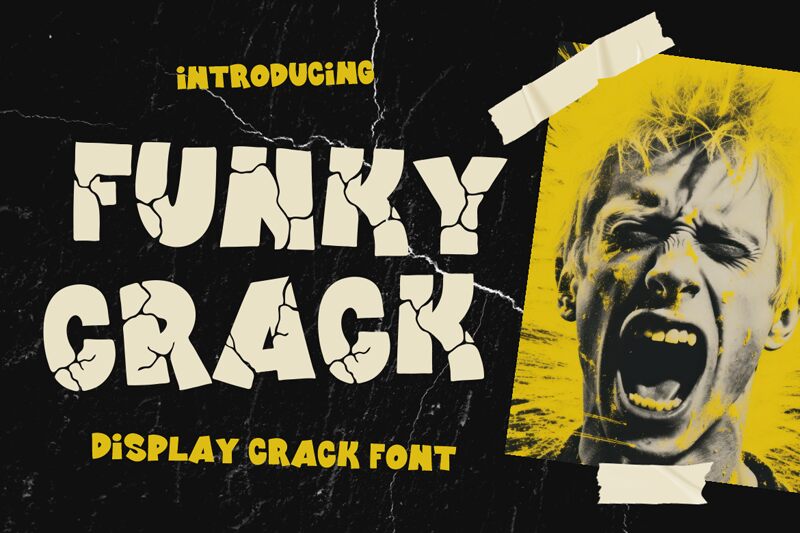
Funky Crack font family by PutraCetol Studio is a free font with cracked and distressed visual characteristics. The font family contains a total of 2 font styles and has lively, energetic, and impactful letterforms. It captures a modern urban vibe with its futuristic, graffiti-inspired design for a unique and rebellious look. Funky Crack will give all of your visual arts designs, flyers, and especially headlines, a distinctive experimental symbol.
Use this font in all kinds of artwork like comics, posters, social media posts, stickers, badges, branding designs, packaging, editorial designs, and more. It is also suitable for creative and eye-catching book covers.